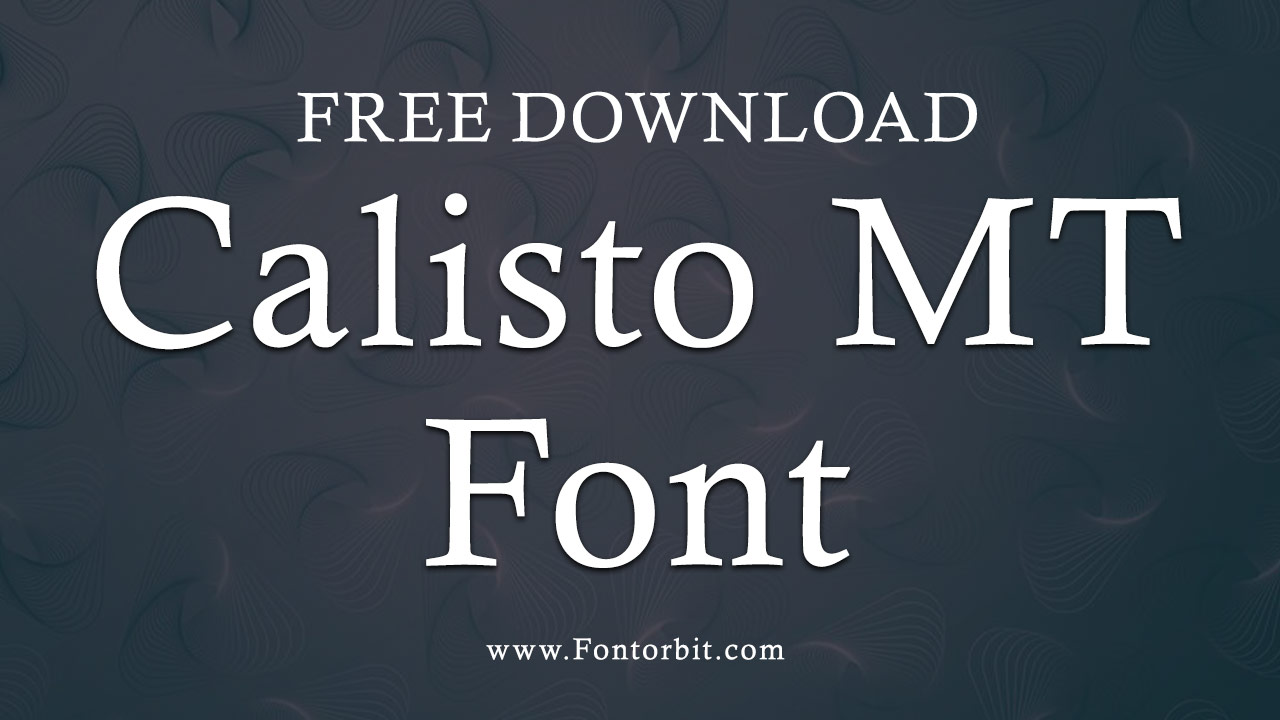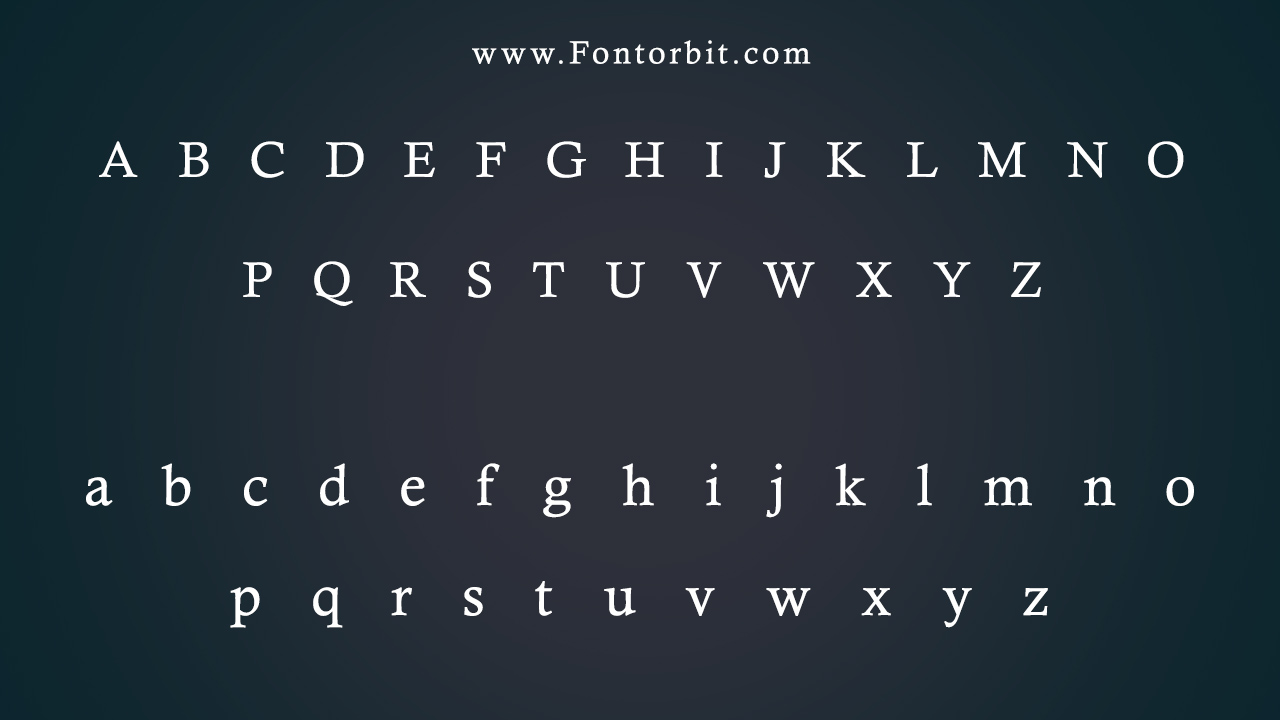
The Calisto MT Font, designed by Ron Carpenter and released by Monotype Corporation in 1986, is a classic serif typeface known for its elegant and legible design.
This typeface features minimal stroke contrast and an even color, making it suitable for body text and display. Ideal for professional and creative projects, Calisto MT combines functionality with style.
The Calisto MT Font is versatile and well-suited for various design applications. Its refined serif design enhances readability and adds a touch of sophistication to your projects.
1.What Is The Calisto MT Font?
Calisto MT is a classic serif typeface designed by Ron Carpenter, known for its minimal stroke contrast and legibility in both body and display text.
2.Who Designed The Calisto MT Font?
Ron Carpenter designed the Calisto MT Font.
3.What Are The Key Features Of Calisto MT?
The font features minimal stroke contrast, an even color, and elegant serifs, making it suitable for body text, display purposes, and professional designs.
4.How To Use Calisto MT In Branding?
Use Calisto MT for body text, book covers, headlines, and editorial designs to achieve a sophisticated and readable appearance.
5.What Are The Different Weights Available In Calisto Mt Font?
The Calisto MT Font family includes Regular, Bold, Italic, and Bold Italic weights. In the Calisto Pro variant, you’ll find Regular, Bold, Italic, and Bold Italic weights, offering versatility for both body and display text.